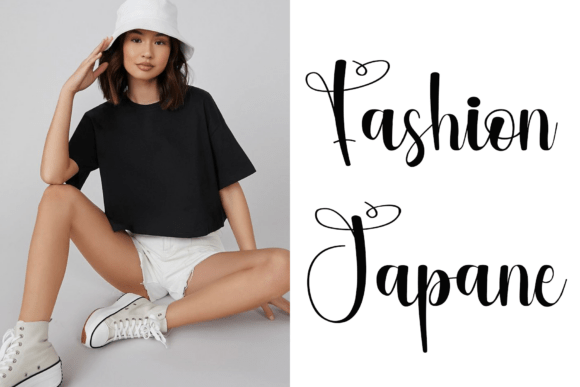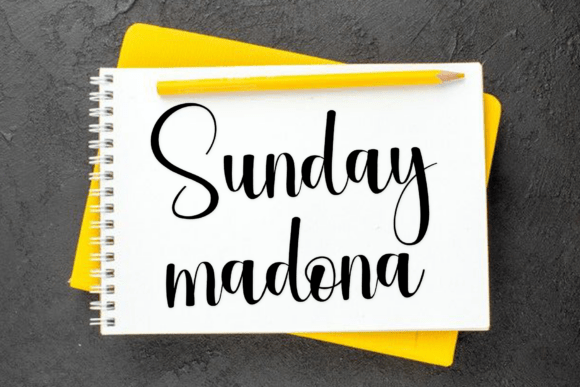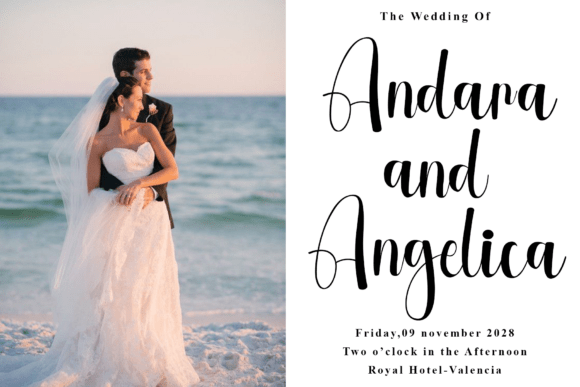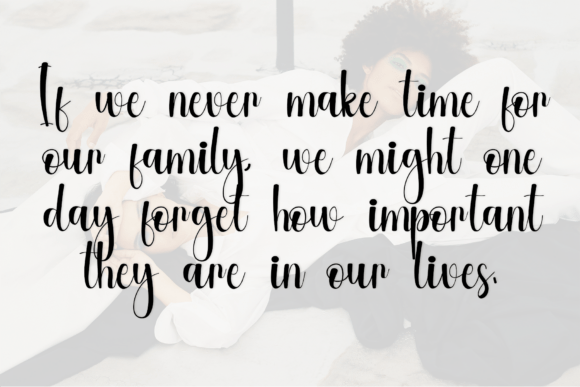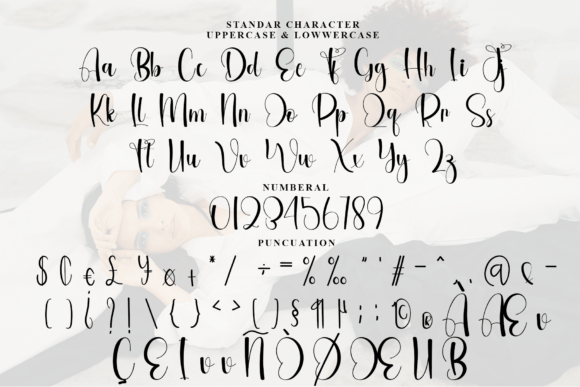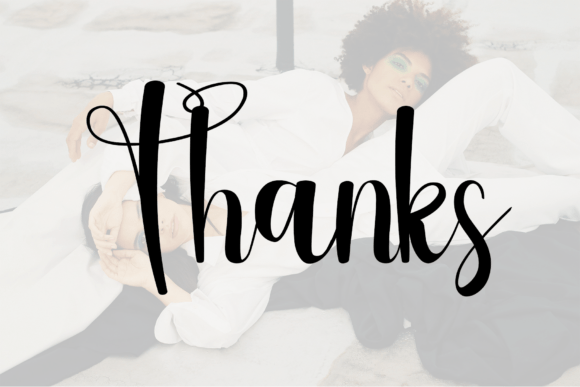
Fashion Font: Elevate Your Designs with a Stylish Handwritten Touch
In the world of typography, few fonts manage to strike a balance between organic charm and strong typographic presence. Fashion Font is one such exceptional typeface that seamlessly blends the elegance of handwritten script with the impact of a professionally crafted font. Part of the “Unique and Professional” collection, Fashion Font is designed to bring a friendly, approachable character to your designs while maintaining a sophisticated look.
The Distinctive Characteristics of Fashion Font
Fashion Font is characterized by its thick, solid strokes that flow with a distinct “bouncy” rhythm. This unique feature gives the font its friendly and approachable character, making it perfect for designs that require a personal touch. The well-balanced proportions of the font ensure that it remains impactful even in busy designs, where clarity and legibility are paramount.
One of the standout features of Fashion Font is its ability to convey a sense of adventure and smartness. The font’s rustic, handmade look is perfectly suited for outdoor lifestyle branding, organic product packaging, travel-themed graphics, and rustic event invitations. Whether you’re designing a logo, brochure, or social media graphics, Fashion Font can add a touch of personality and whimsy to your work.
Fashion Font is a versatile typeface that can be used across various design projects. Designers and crafters can use this font to create:
- Outdoor Lifestyle Branding: From hiking gear to outdoor apparel, Fashion Font can help create a brand identity that resonates with adventure-seekers and nature lovers.
- Organic Product Packaging: Add a personal touch to your product packaging with Fashion Font, perfect for organic food, skincare, and eco-friendly products.
- Travel-Themed Graphics: Create stunning travel brochures, posters, and social media graphics with Fashion Font, evoking a sense of wanderlust and exploration.
- Rustic Event Invitations: Make your event invitations stand out with Fashion Font, perfect for rustic weddings, outdoor festivals, and craft fairs.
Why Choose Fashion Font?
With so many fonts available, why choose Fashion Font? Here are a few compelling reasons:
- Unique and Professional: Fashion Font is part of the “Unique and Professional” collection, ensuring that your designs stand out from the crowd.
- Handwritten Charm: The font’s handwritten script offers a personal touch that’s hard to replicate with generic fonts.
- Versatile: Fashion Font can be used across various design projects, from branding to packaging to event invitations.
- Easy to Read: The font’s well-balanced proportions ensure that it’s easy to read, even in small sizes.
Tips for Using Fashion Font Effectively
To get the most out of Fashion Font, here are a few tips:
- Pair with Neutral Backgrounds: Fashion Font works best with neutral backgrounds, allowing the font’s unique characteristics to shine.
- Experiment with Colors: Try pairing Fashion Font with bold, bright colors to create a striking contrast.
- Use for Headlines and Titles: Fashion Font is perfect for headlines and titles, adding a touch of personality to your designs.
- Mix with Other Fonts: Don’t be afraid to mix Fashion Font with other fonts to create a unique and visually appealing design.
In conclusion, Fashion Font is a stylish handwritten font that can elevate your designs with its organic charm and strong typographic presence. With its unique characteristics, versatility, and ease of use, Fashion Font is perfect for designers and crafters looking to add a personal touch to their work. Whether you’re creating outdoor lifestyle branding, organic product packaging, travel-themed graphics, or rustic event invitations, Fashion Font is the perfect choice.